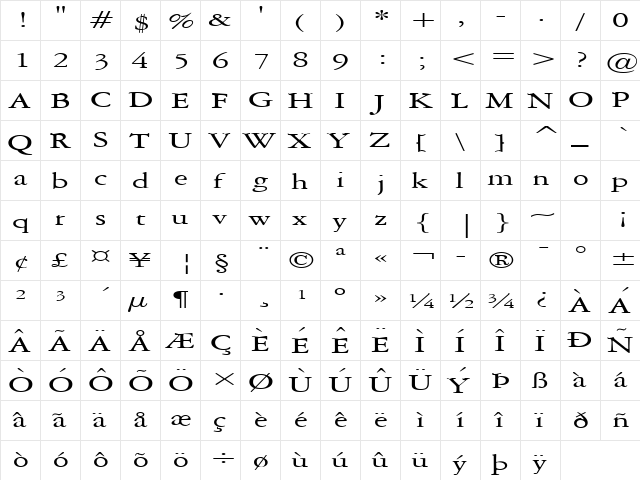
Amery Extended Normal
Design Context for Amery Extended Typeface
Amery Extended is a composed and adaptable typeface that performs quietly and consistently across a wide range of design contexts.